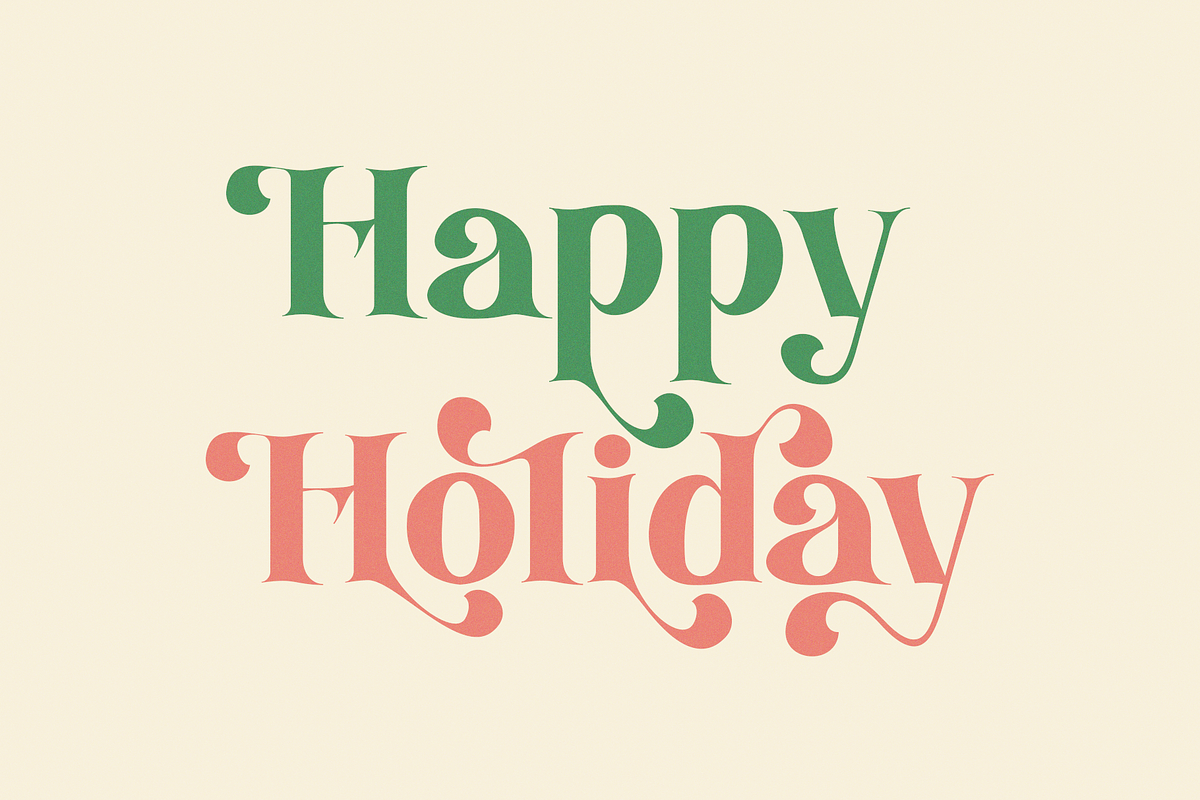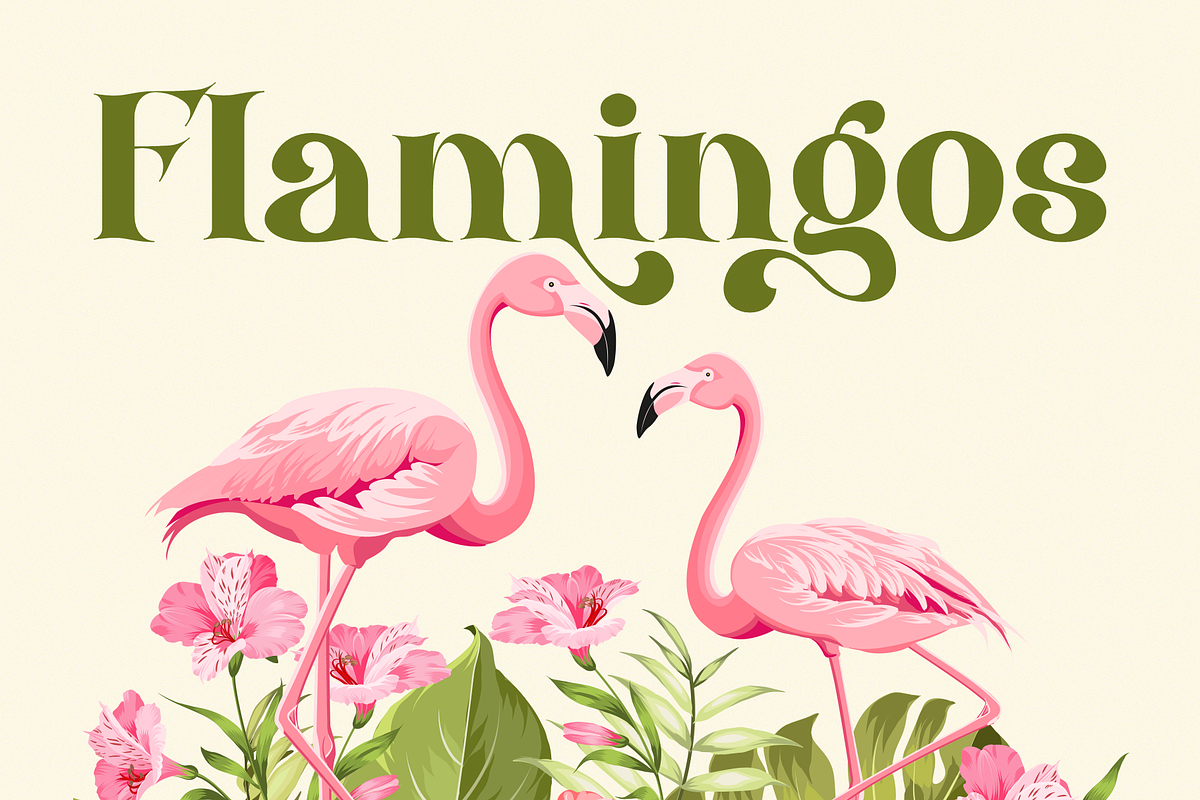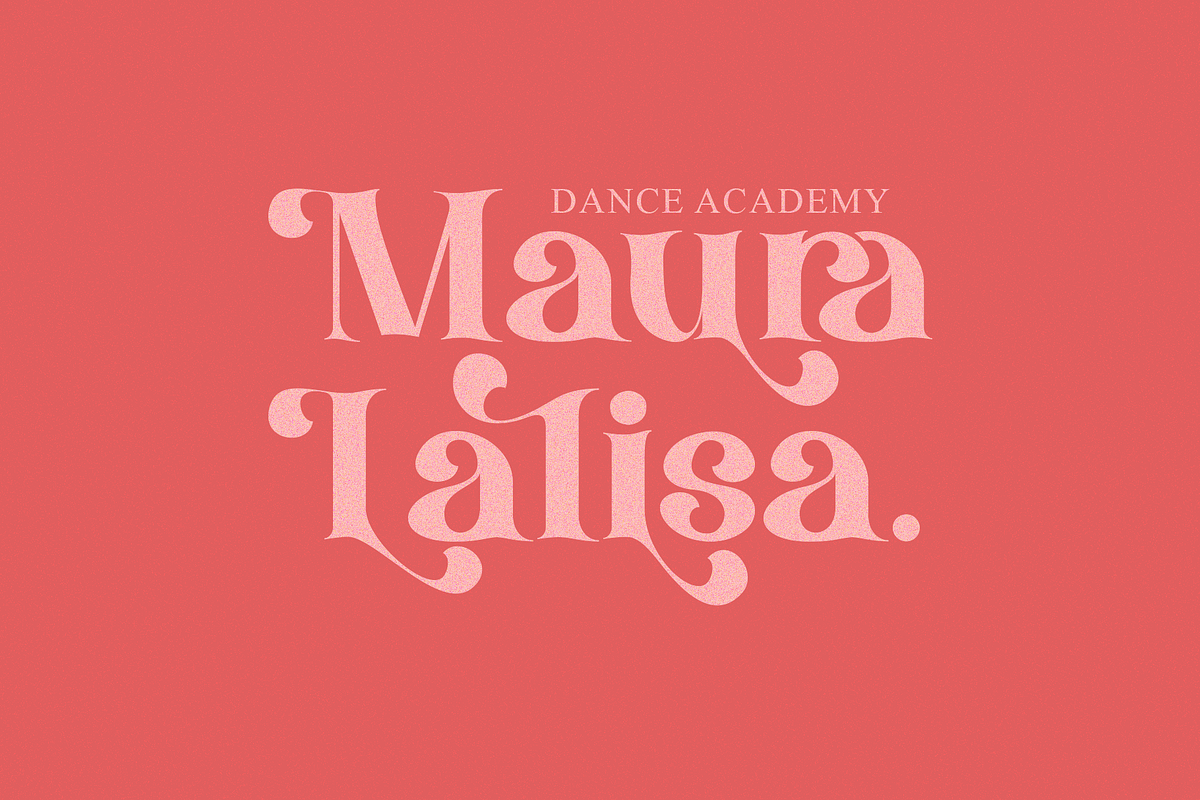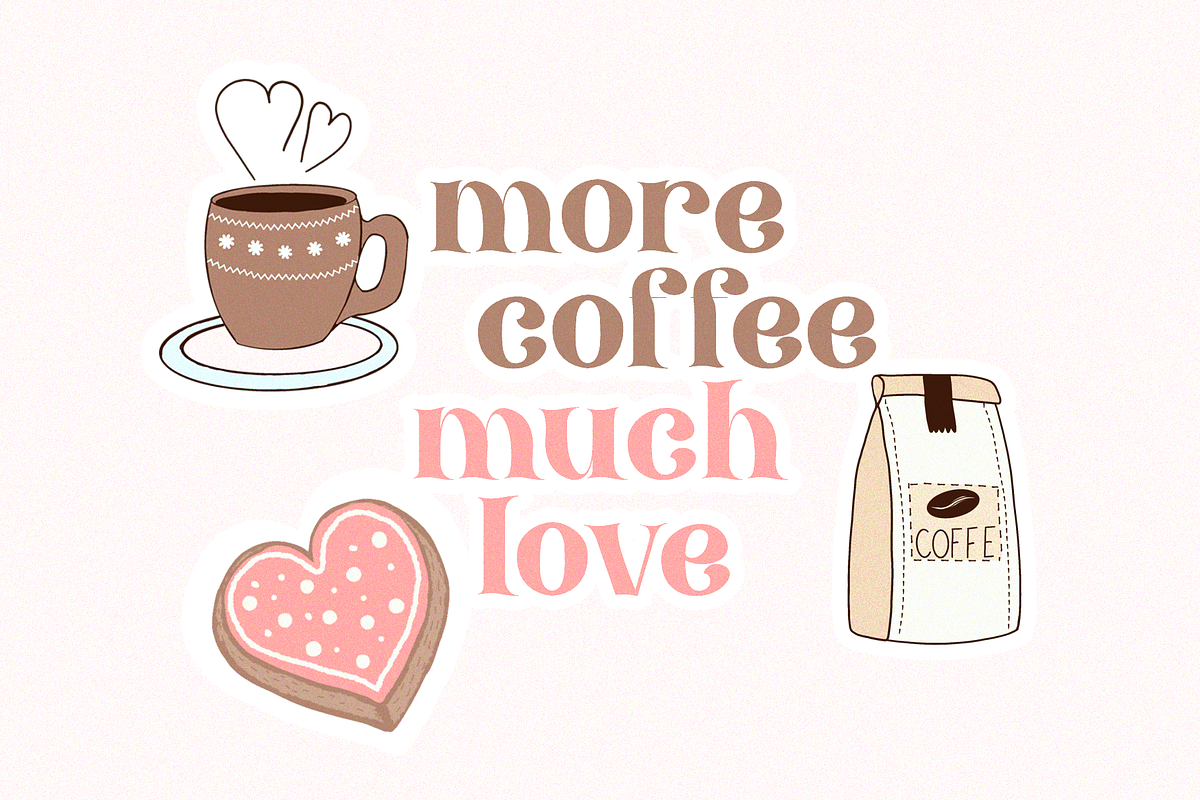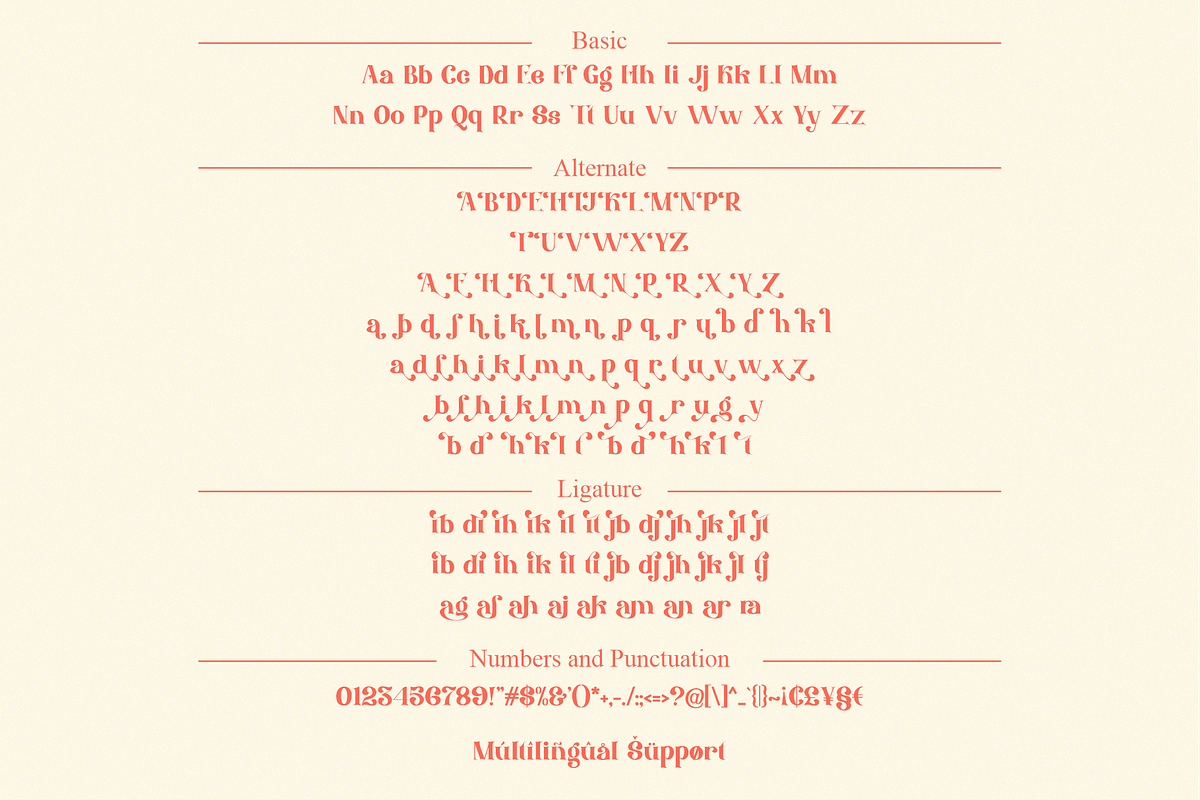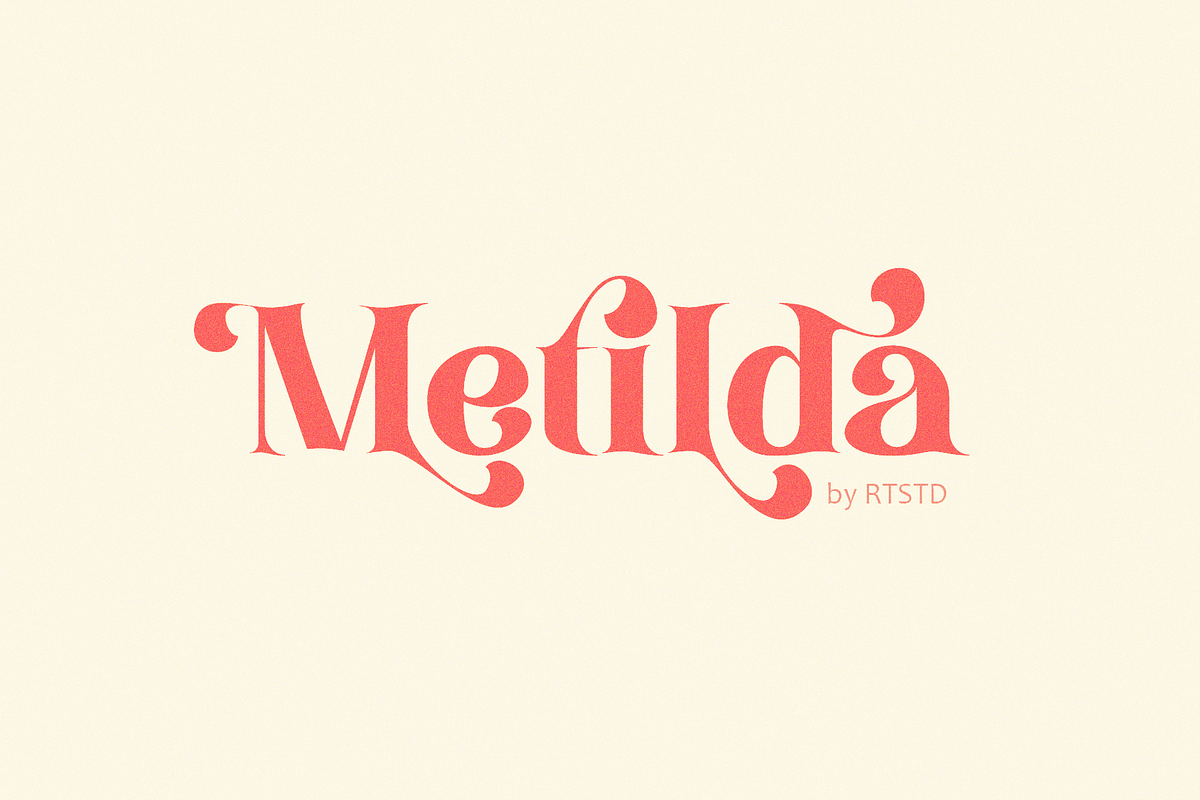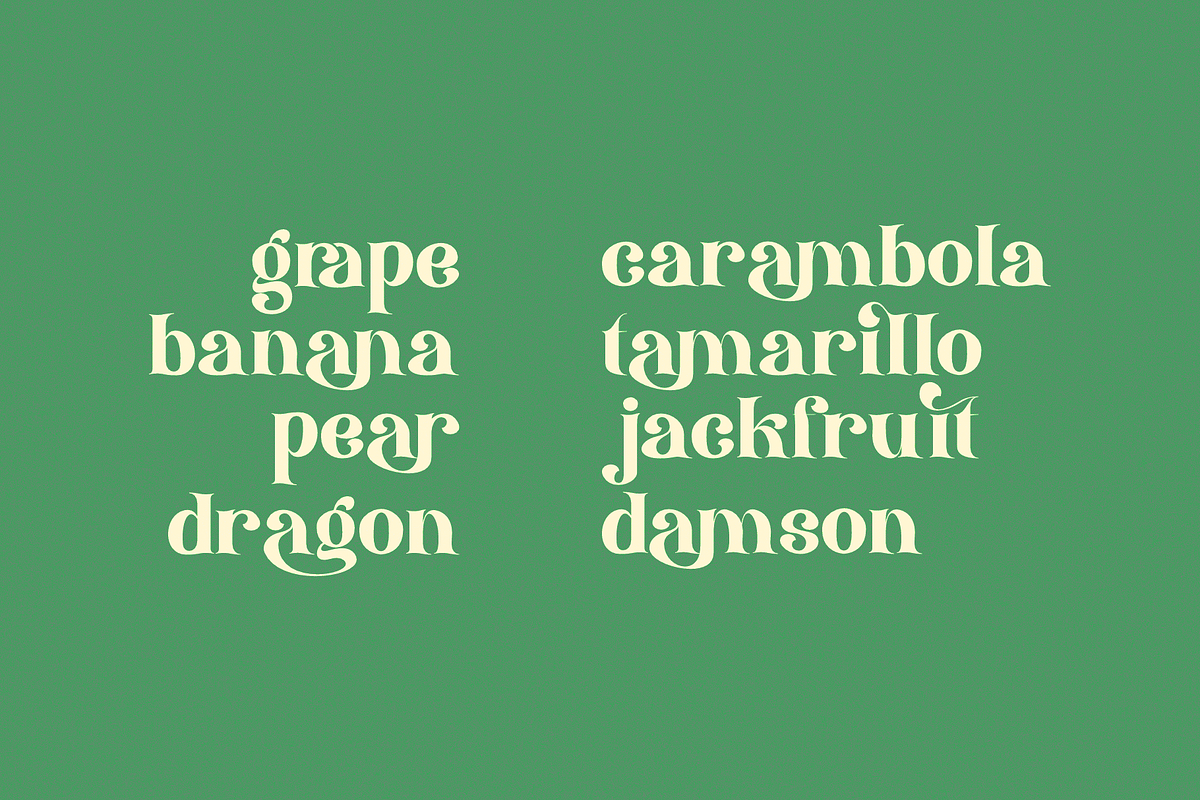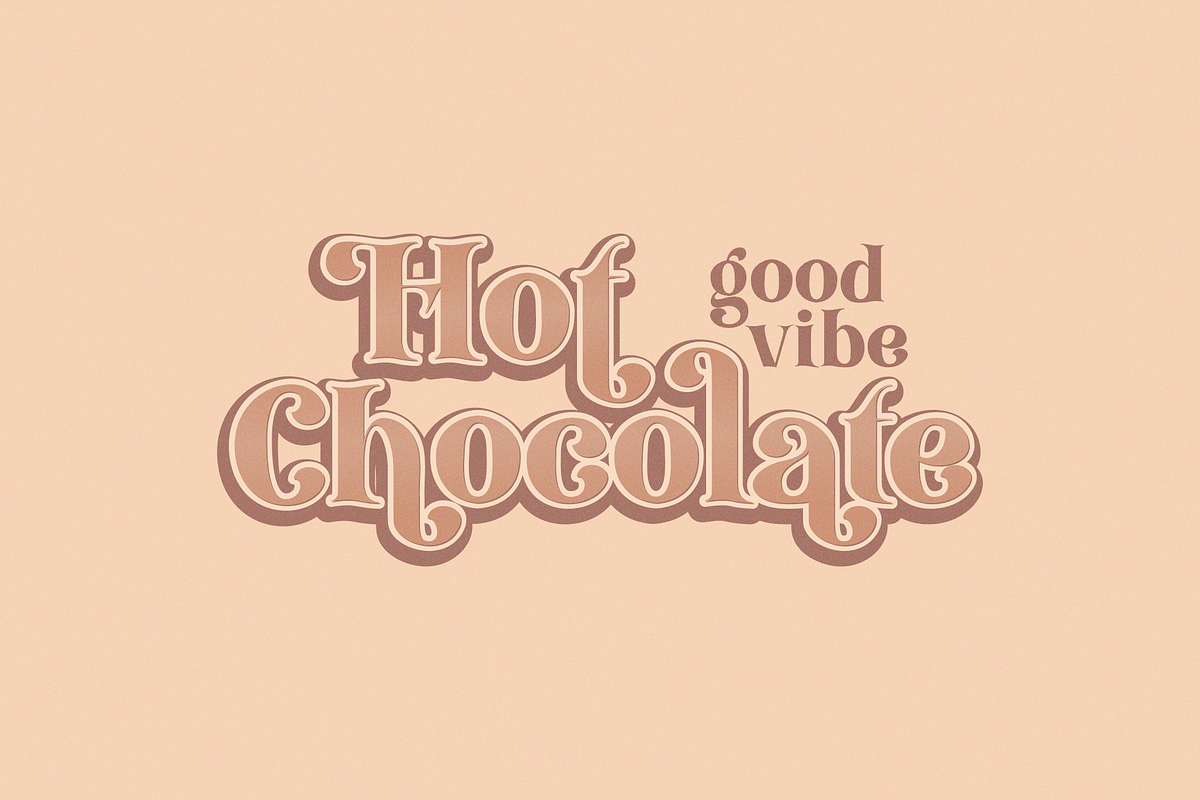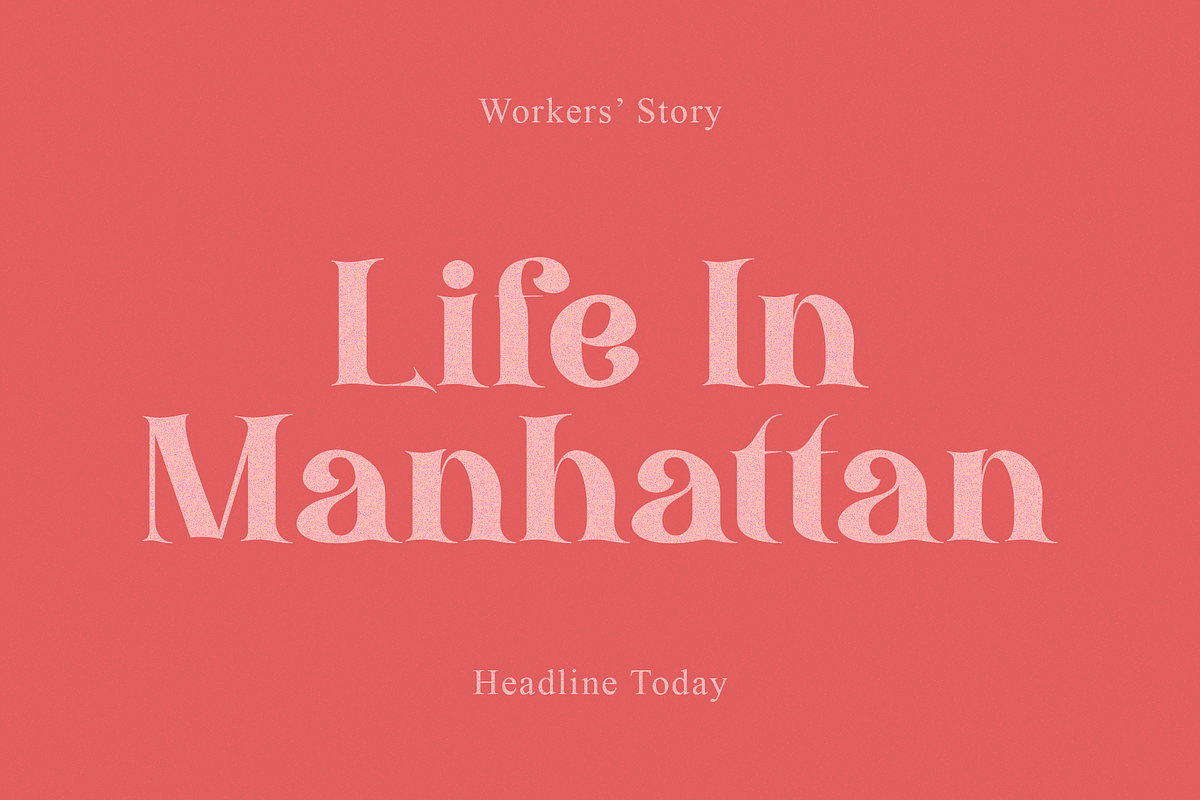
Metilda | Fancy Vintage Font
Metilda is a quirky, fun and versatile serif Font with ligatures and alternates that you can combine to get beautiful curves and shapes in just seconds. Play with it to make the display even more stunning.
This font is suitable for use in many forms of design, such as magazines, postcards, logos, vintage looks, old classics, 60s, 70s, 80s, wedding projects and more.